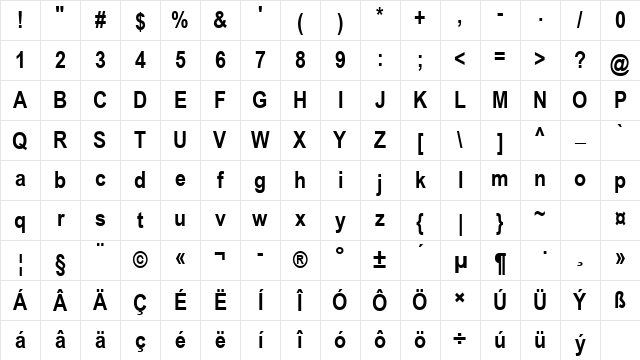
Arial Narrow CE Bold Free Font
Arial Narrow CE Bold
Design Context for Arial Narrow CE
Arial Narrow CE is a composed and adaptable typeface that performs quietly and consistently across a wide range of design contexts. Its bold stroke weight gives it real presence on the page. Its narrow stance lets it pack a punch even in space-constrained designs.